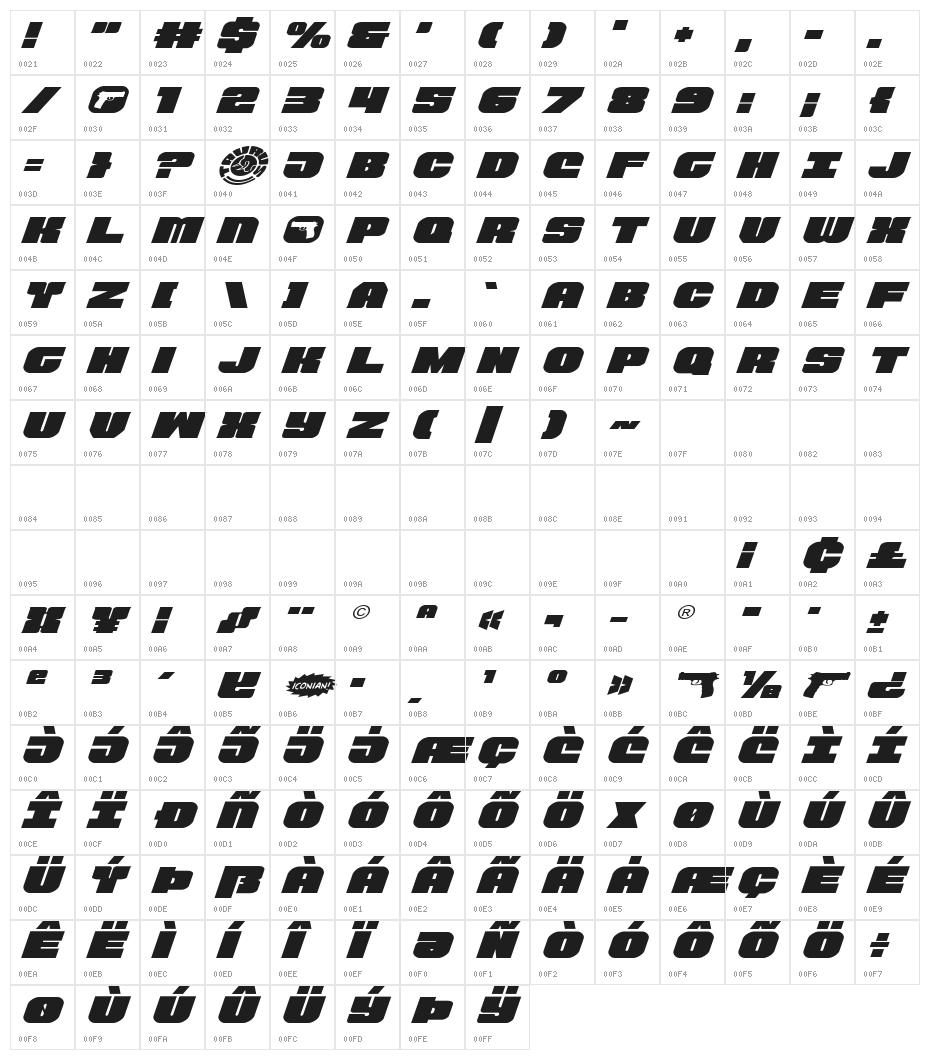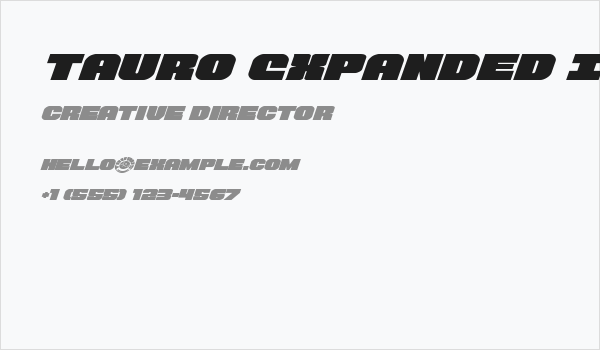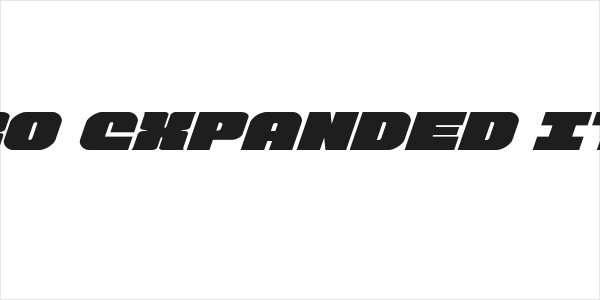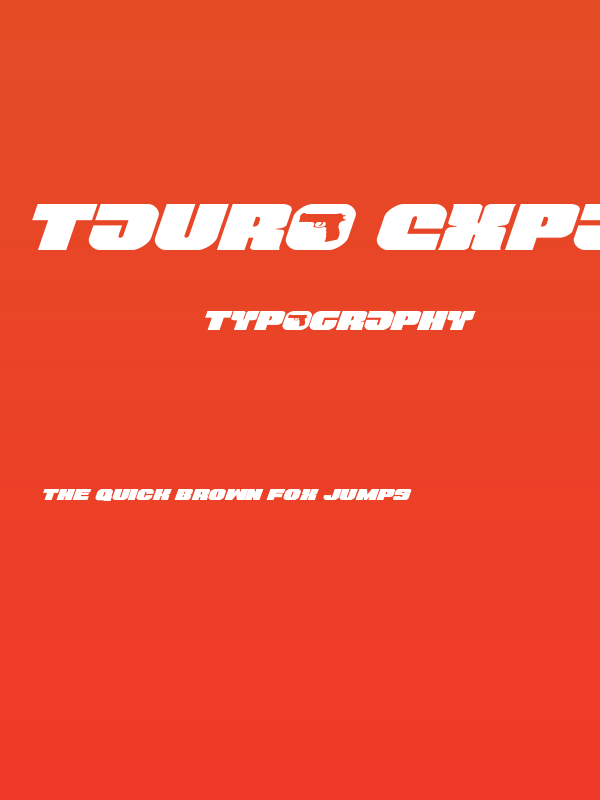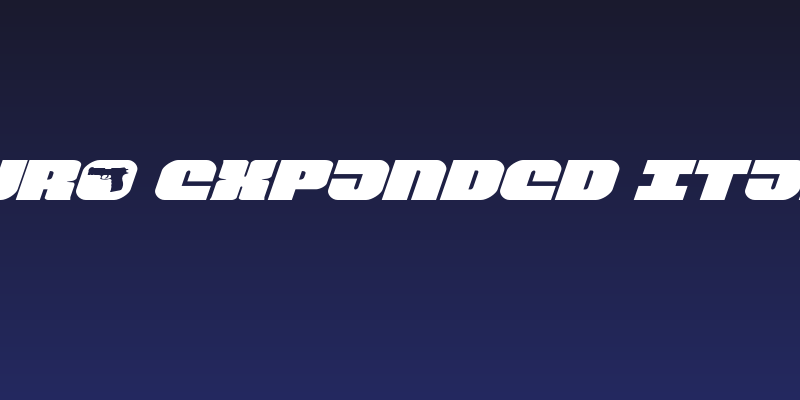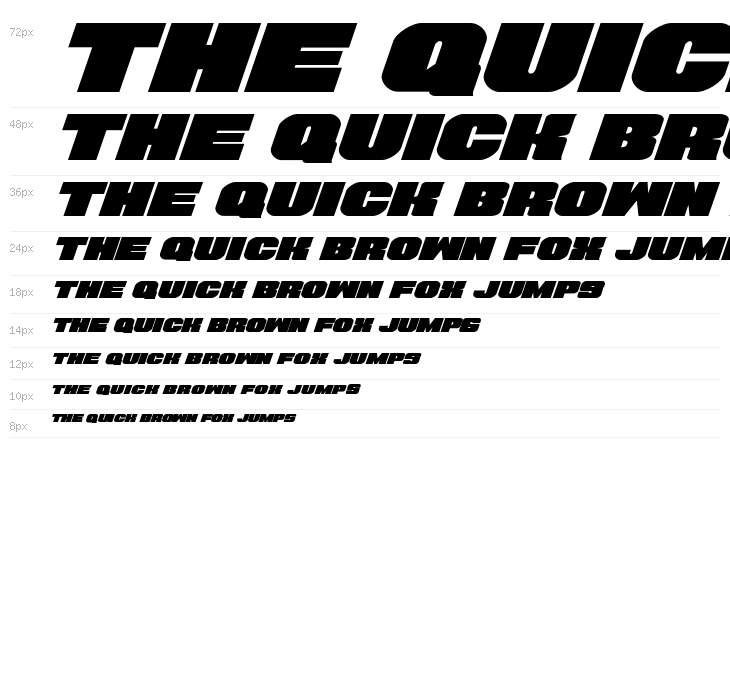
Tauro Expanded Italic Font
Tauro Expanded Italic Description
This font features a bold and dynamic design with a distinctly modern and aggressive style. The characters are expanded and italicized, giving them a sense of motion and energy. The strokes are thick and consistent, providing a strong visual impact. The overall appearance is sleek and futuristic, making it suitable for projects that require a bold statement. The special characters and numbers maintain the same boldness and style, ensuring consistency across all text elements.